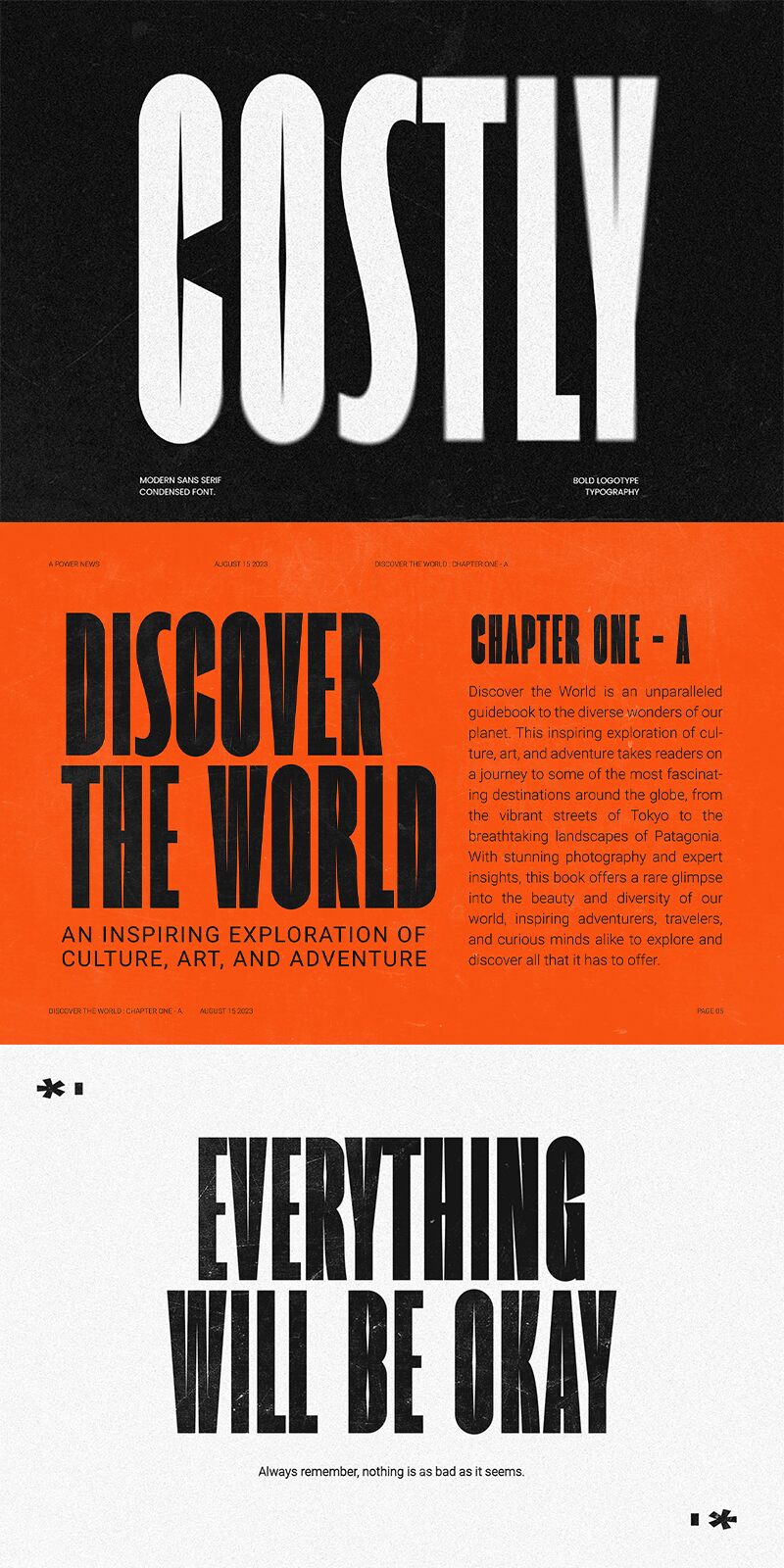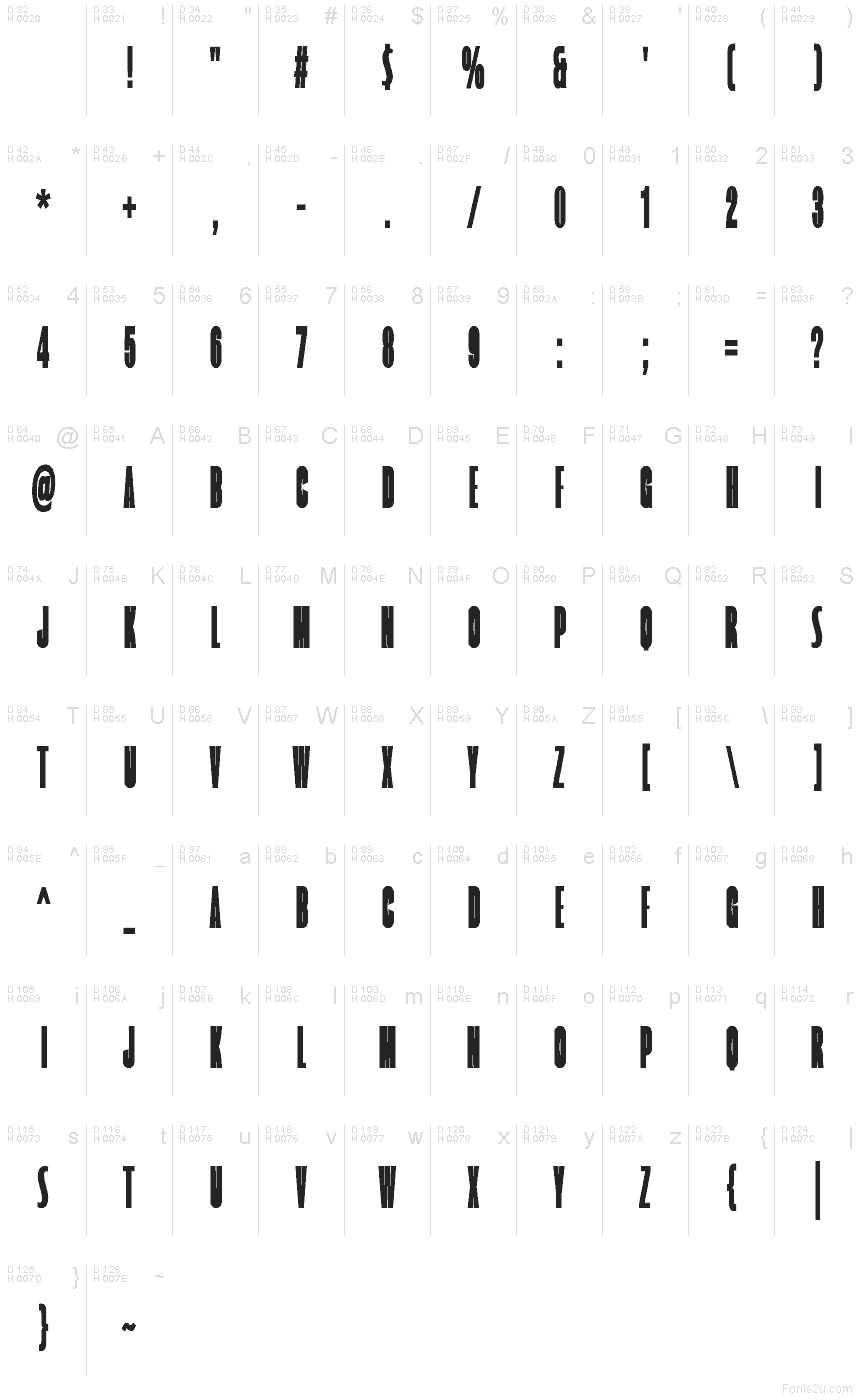
Costly
Costly font by Graphicxell is a free condensed sans serif typeface. Built tall and ultra-bold, it packs serious volume into narrow spaces, with tight verticals and a scuffed, inky texture that reads like letterpress on rough paper. Headlines pop, lines stack neatly, and you get striking impact without eating up horizontal real estate.
Using Costly, you can punch up posters, gig flyers, book spines, packaging, thumbnails, and bold social graphics. The rhythm is assertive yet readable, so short phrases land hard and stick. Keep it big for maximum drama, and pair this free font with a light, open sans for supporting text to let the heavy forms breathe.